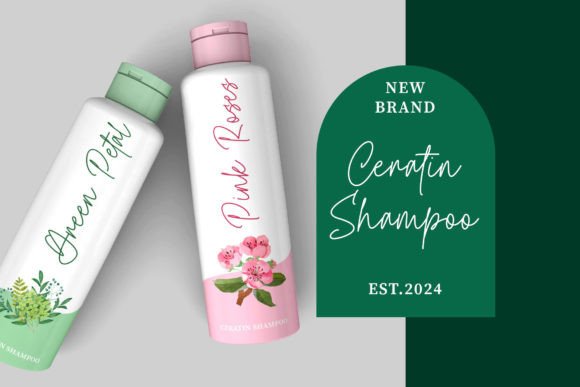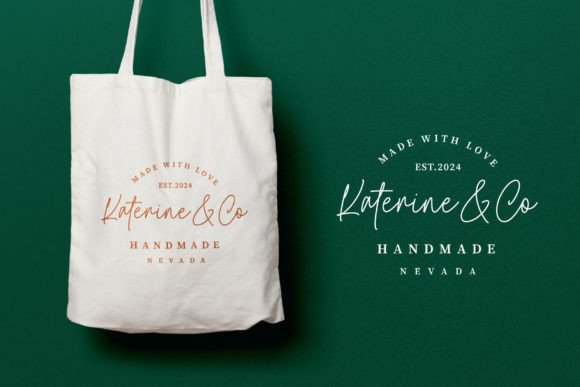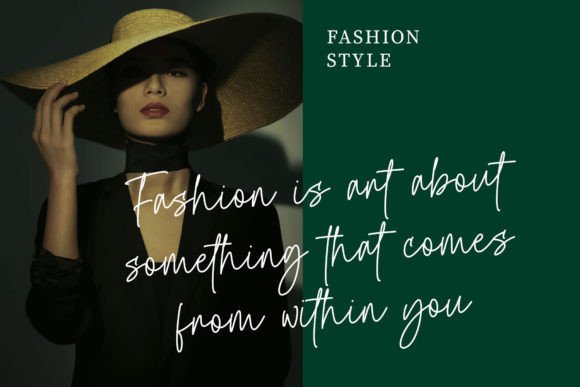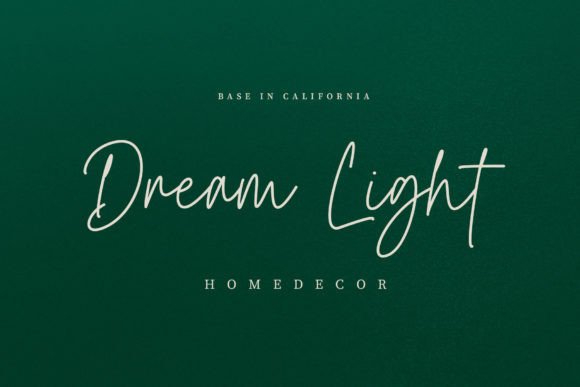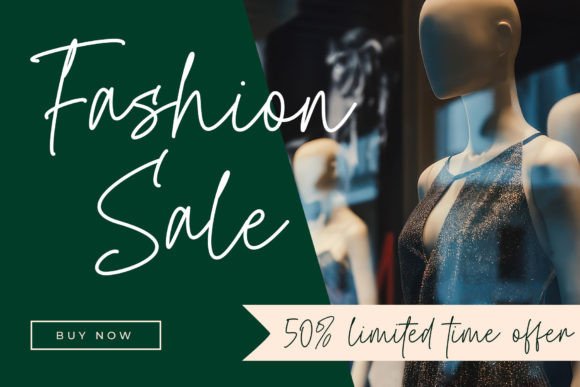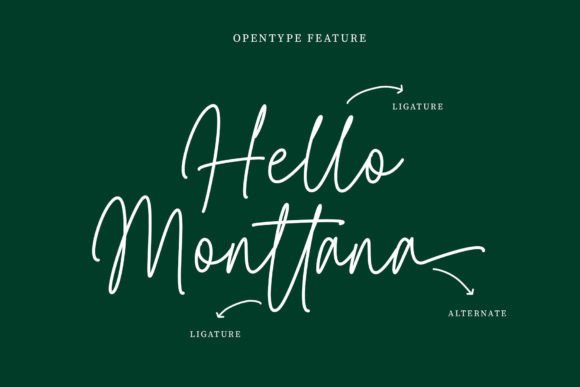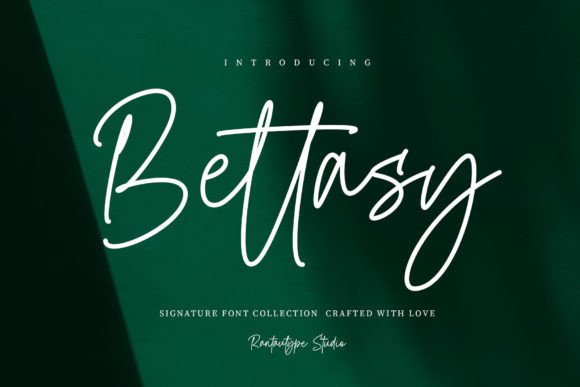
Bettasy Font: Elevate Your Designs with Elegance and Charm
In the world of typography, few fonts manage to capture the essence of elegance and charm as effortlessly as Bettasy. This stylish handwritten script font has been making waves among designers and crafters alike, and for good reason. With its flowing, graceful curves, Bettasy brings a touch of sophistication and warmth to any design, making it perfect for a wide range of applications, from invitations and logos to branding and more.
The Characteristics of Bettasy Font
Bettasy is more than just a font – it’s an experience. Its delicate strokes and carefully crafted letterforms exude a sense of refinement and luxury, making it an ideal choice for designers looking to add a personal touch to their work. Whether you’re creating wedding invitations, branding materials, or social media graphics, Bettasy’s elegant curves and fluid lines will elevate your designs to new heights.
What Makes Bettasy Stand Out?
• Elegant and Refined: Bettasy’s flowing script is characterized by its elegant and refined appearance, making it perfect for designs that require a touch of sophistication.
• Versatile: From invitations and logos to branding and packaging, Bettasy’s versatility knows no bounds. Its adaptability makes it a valuable asset for designers working on a wide range of projects.
• Delicate Strokes: The font’s delicate strokes bring a sense of warmth and creativity to any design, making it perfect for crafters and designers looking to add a personal touch to their work.
• Easy to Read: Despite its elegant appearance, Bettasy remains easy to read, making it a practical choice for body text and headlines alike.
Bettasy is a dream come true for designers and crafters looking to add a touch of elegance and charm to their work. Whether you’re a seasoned professional or just starting out, this versatile font is sure to become a staple in your design arsenal. Here are just a few ways you can use Bettasy to elevate your designs:
Wedding Invitations and Stationery
Bettasy’s elegant script is perfect for wedding invitations, save-the-dates, and other stationery. Its refined appearance sets the tone for a sophisticated and memorable event.
Logos and Branding
Make a lasting impression with Bettasy’s elegant curves and fluid lines. This font is ideal for logos, business cards, and other branding materials that require a touch of sophistication.
Social Media Graphics and Packaging
Bettasy’s versatility extends to social media graphics, packaging, and more. Use it to create eye-catching graphics, product labels, and packaging that stands out from the crowd.
Tips for Using Bettasy Font
To get the most out of Bettasy, here are a few tips to keep in mind:
• Pair with Contrasting Fonts: Pair Bettasy with contrasting fonts to create visual interest and hierarchy in your designs.
• Experiment with Colors: Don’t be afraid to experiment with different colors and textures to add depth and dimension to your designs.
• Use for Headlines and Titles: Bettasy’s elegant appearance makes it perfect for headlines and titles. Use it to create eye-catching graphics and attention-grabbing text.
Bettasy font is a stylish and elegant handwritten script font that is sure to elevate your designs to new heights. With its flowing curves, delicate strokes, and refined appearance, it’s perfect for designers and crafters looking to add a touch of sophistication and charm to their work. Whether you’re creating wedding invitations, logos, or social media graphics, Bettasy is the perfect choice for anyone looking to make a lasting impression.